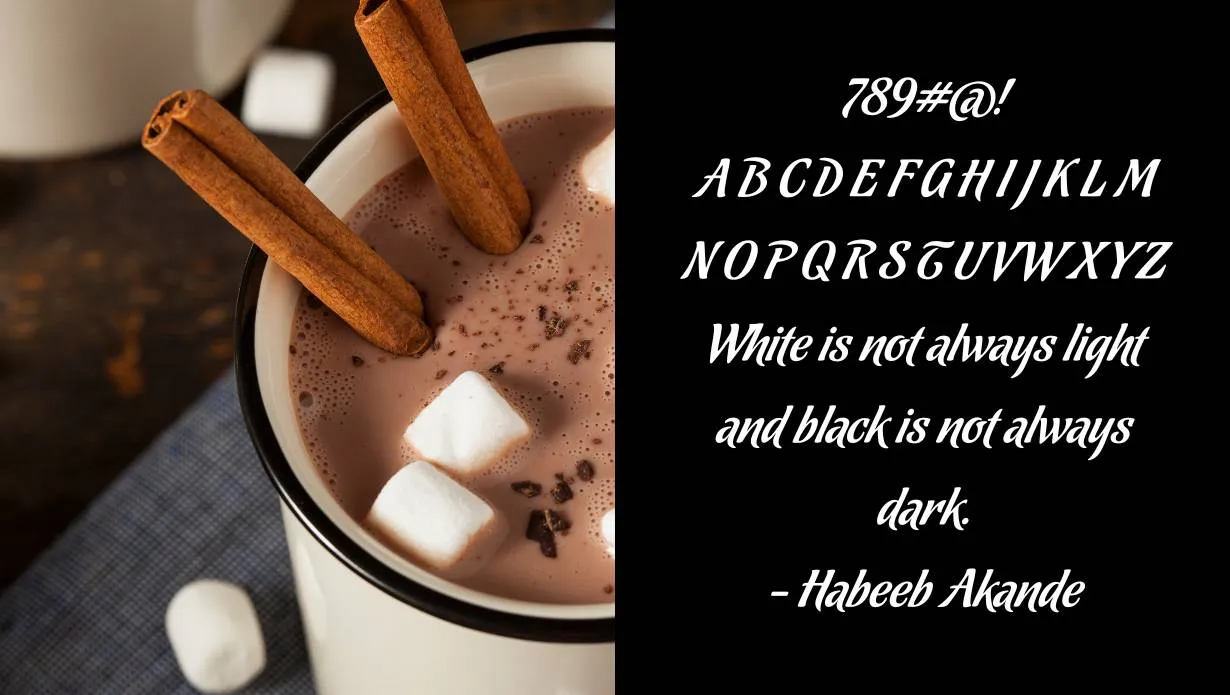
Chocolate Caliente Font is a script-typeface that is commonly used for comic books, television programs, and feature films. The font was made in 1939 by Sudtipos Paul Koziupa. The font was designed in collaboration with a comics artist and the designer.
This font was recently updated in 2009, It features a more modern take on the classic logo design with a slightly updated typeface.
It is available in a single weight with regular and oblique versions. It is well respected due to its pairing function with another neutral typeface like goeslim ultra thin font.